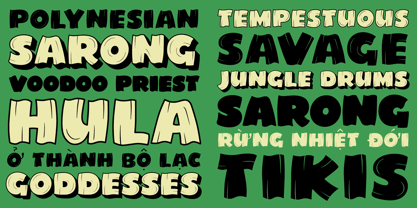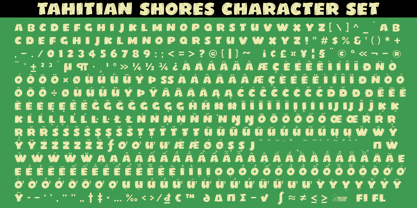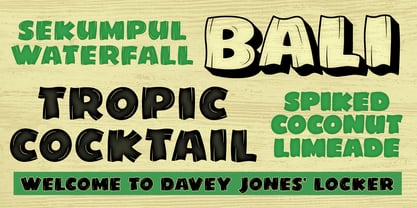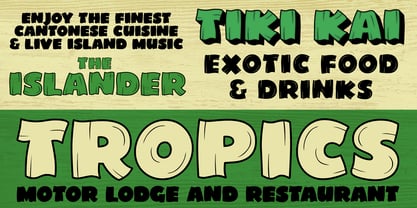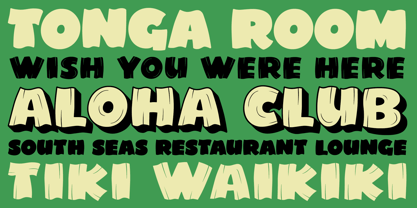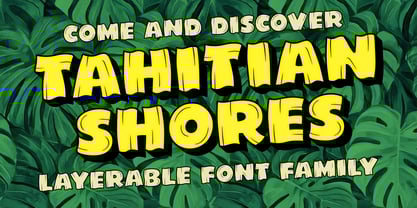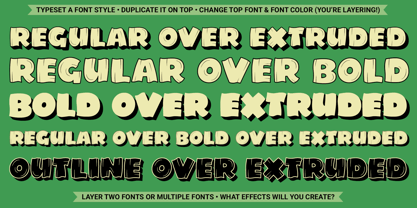
Tahitian Shores
by One Eyed Squid
The Tahitian Shores Font Family was designed by Brian J. Bonislawsky, Dave Cohen and published by One Eyed Squid. Tahitian Shores contains 4 styles and family package options. More about this family
Tahitian Shores is a tropical display font family inspired by the 1941 film South of Tahiti and infused with vintage Polynesian flair, casual warmth, and island atmosphere. Its lively letterforms capture the spirit of classic travel, tiki, and mid-century exotic design while offering flexible styling through four layerable styles: Regular, Bold, Outline, and Extruded. Most styles can be used independently, while layering them opens up a variety of dimensional effects for more decorative treatments. Ideal for posters, branding, packaging, signage, restaurant graphics, event materials, and other creative projects that call for retro tropical character and relaxed island energy. Includes extended Latin language support, including Vietnamese.
Designers: Brian J. Bonislawsky, Dave Cohen
Foundry: One Eyed Squid
Tahitian Shores